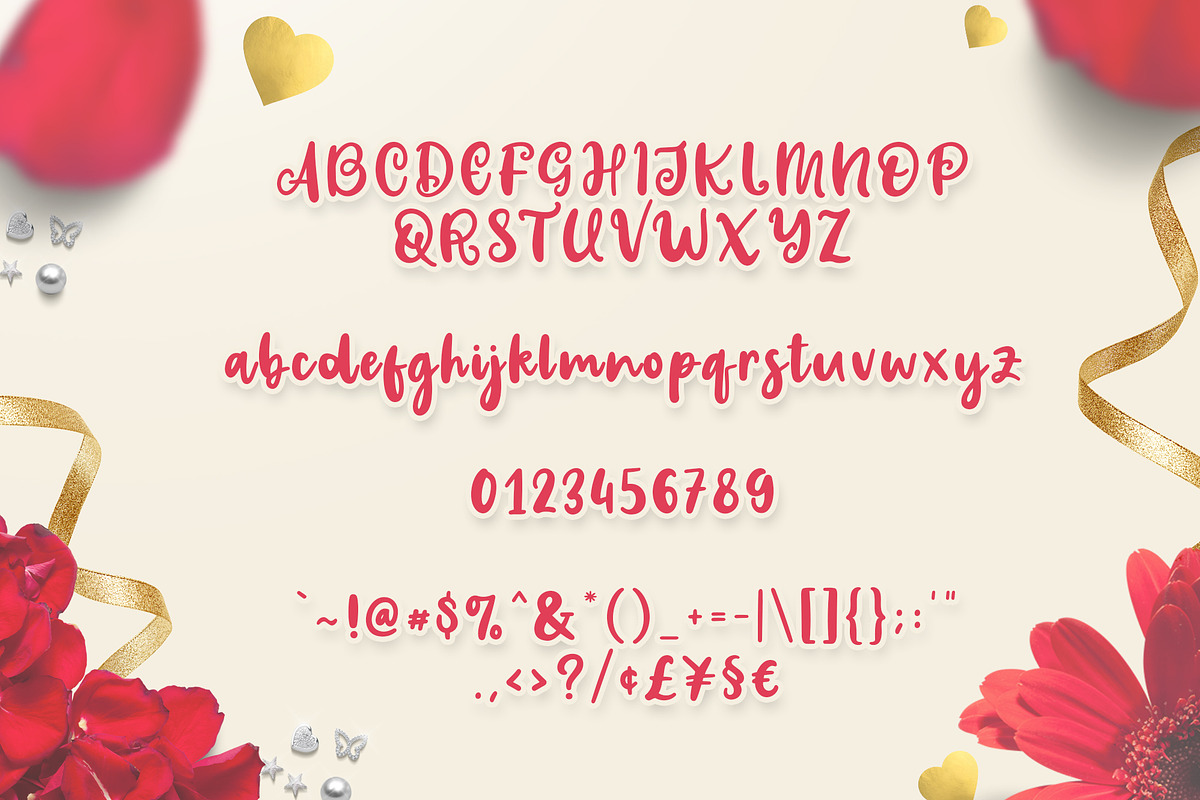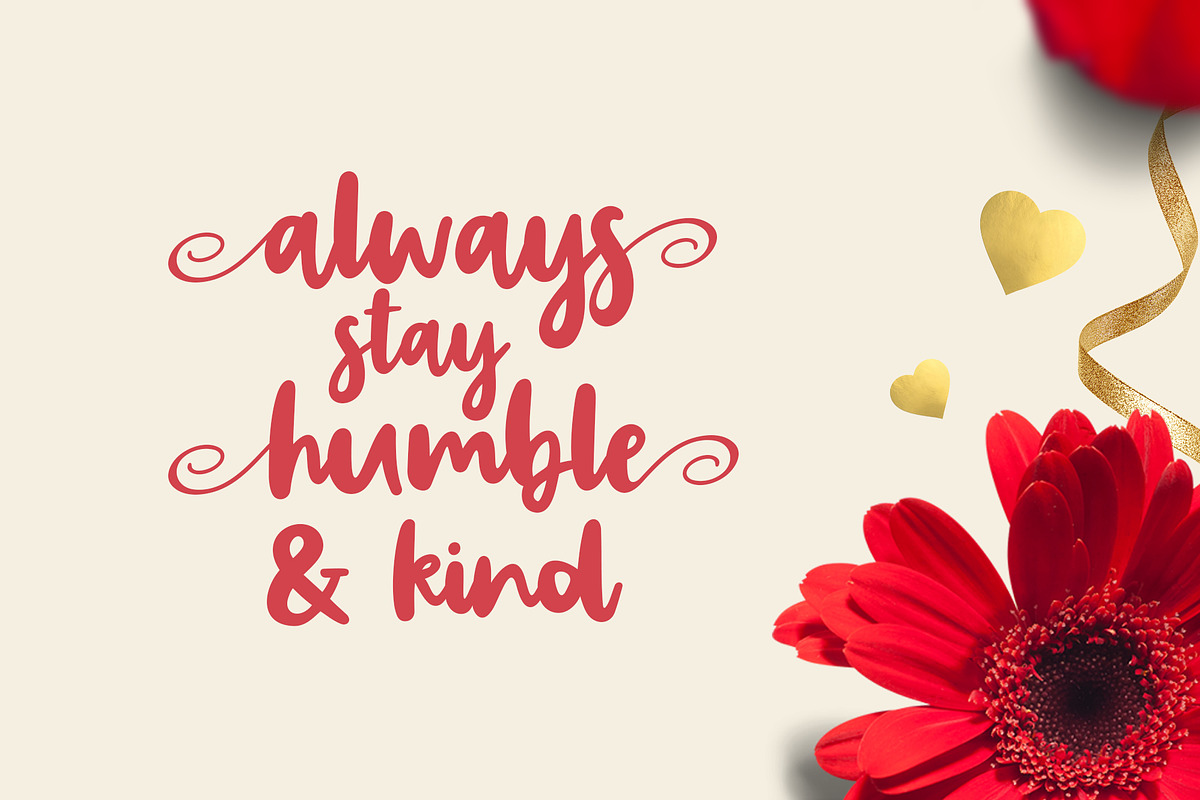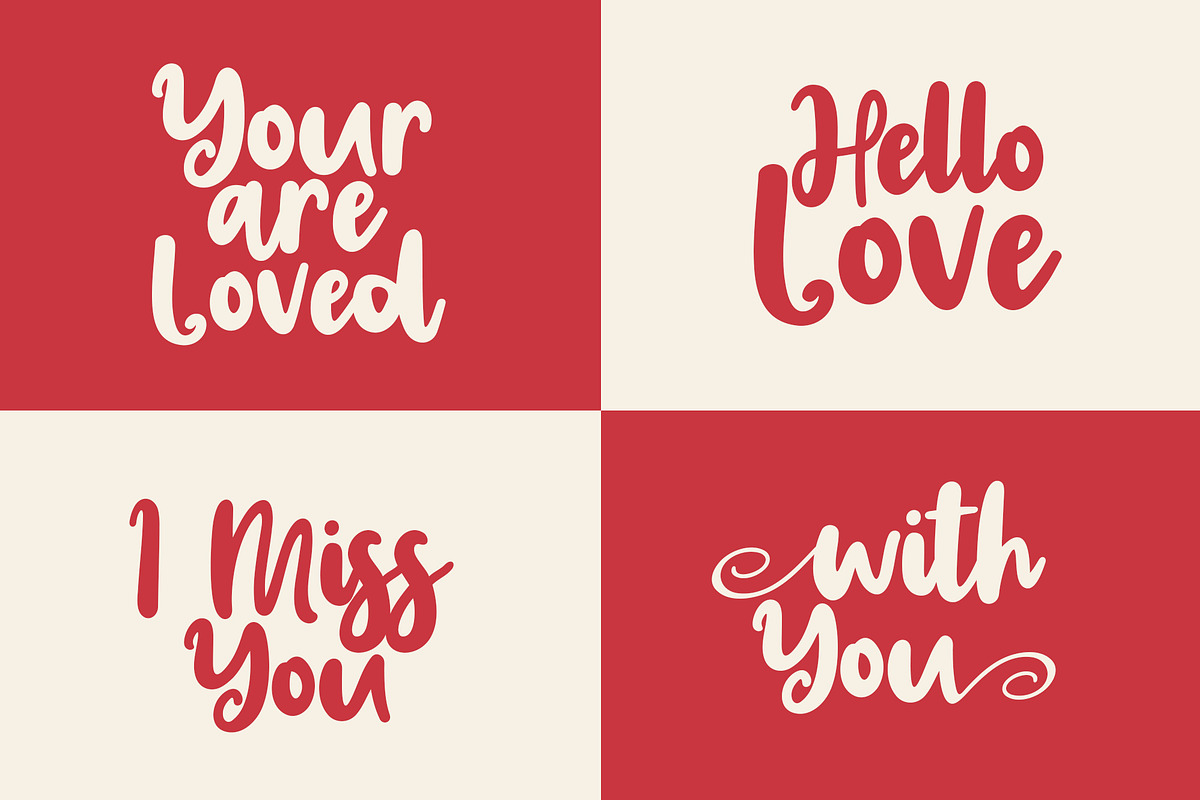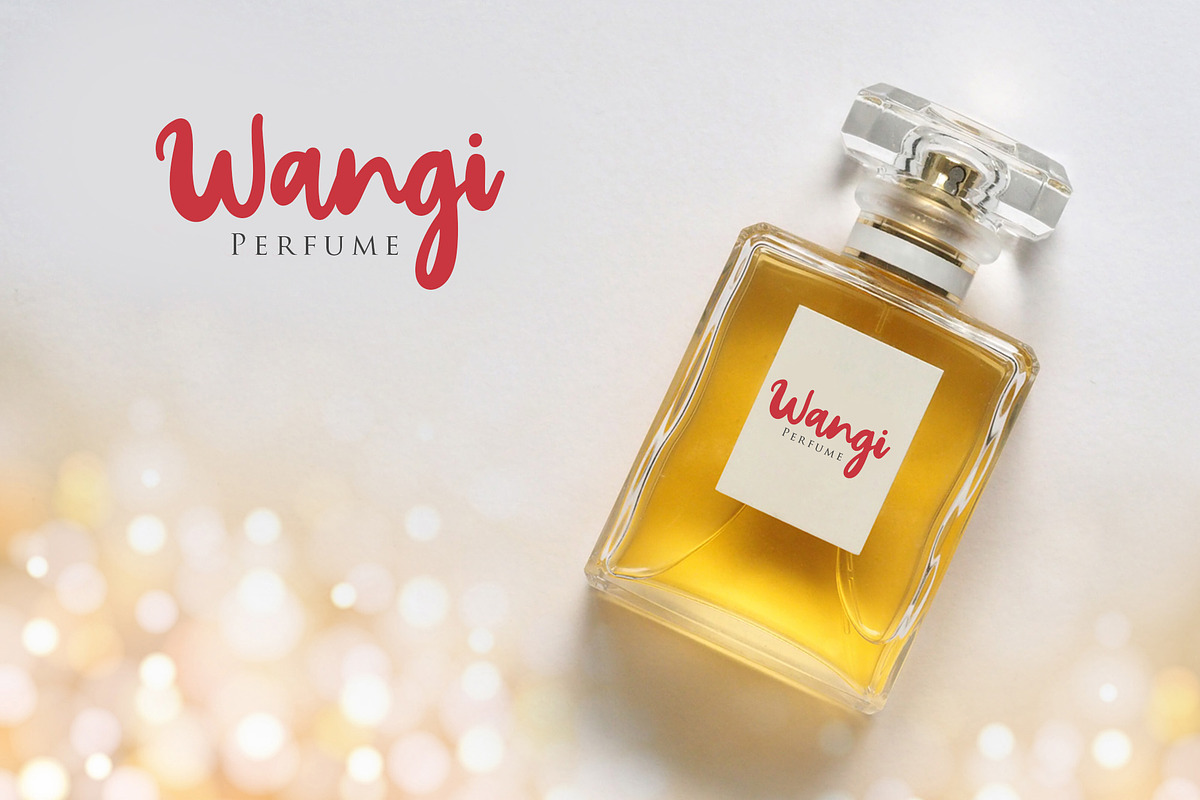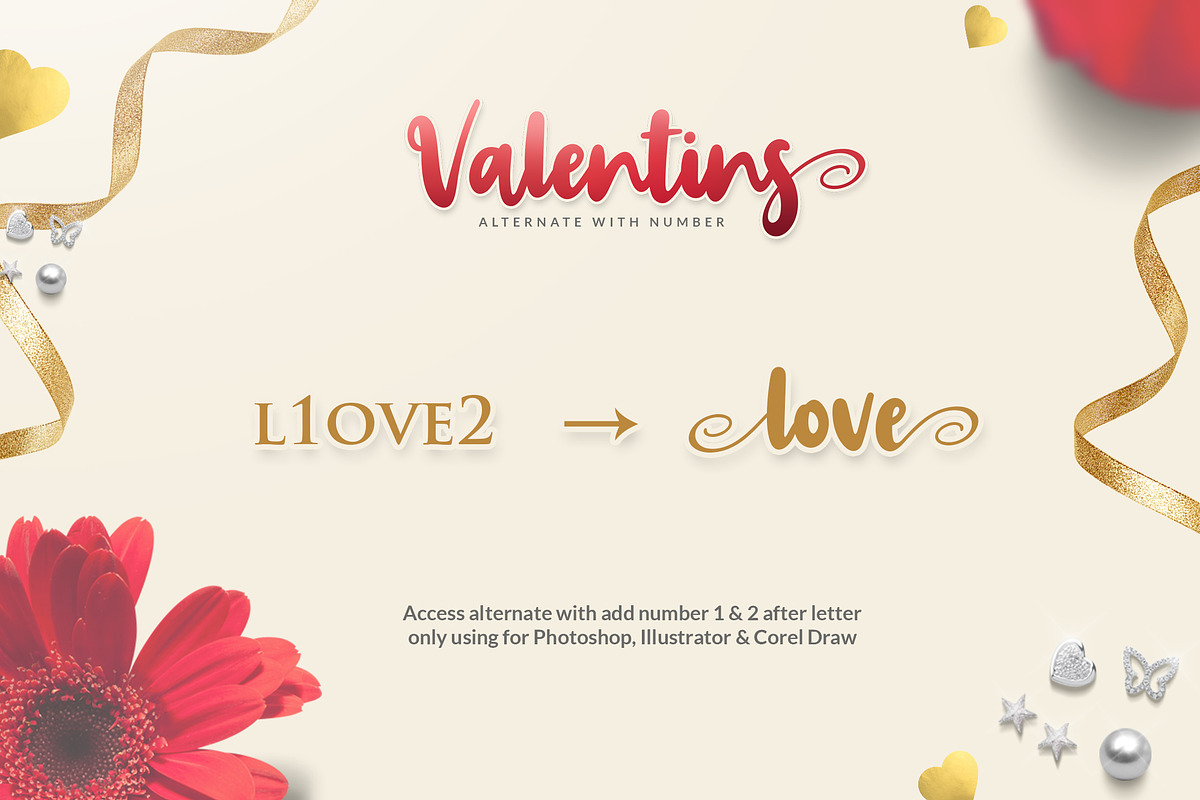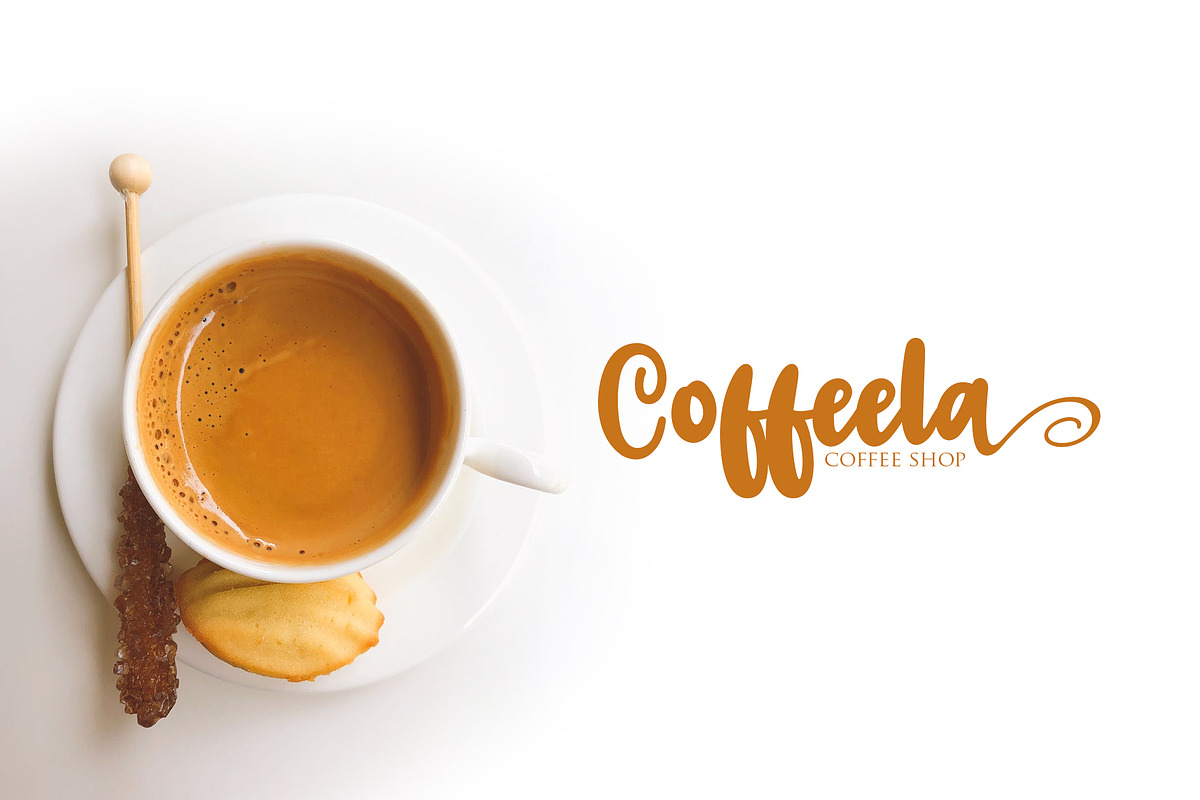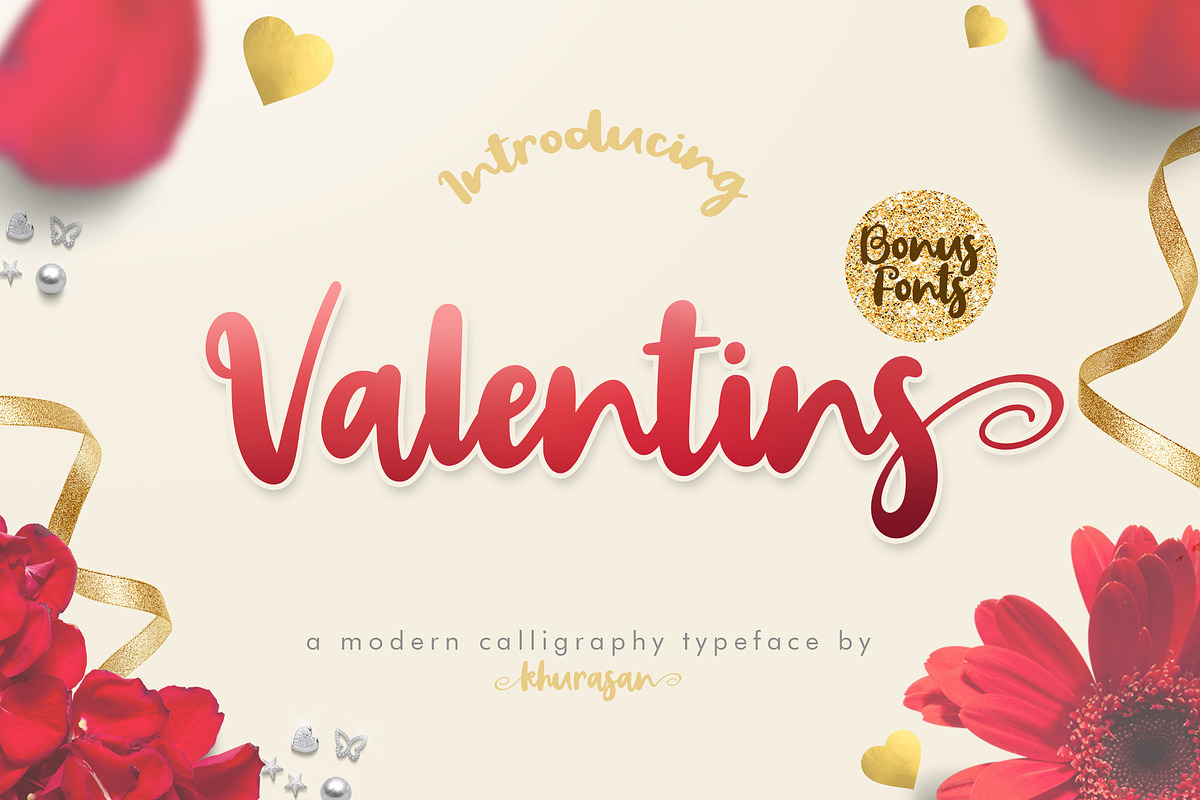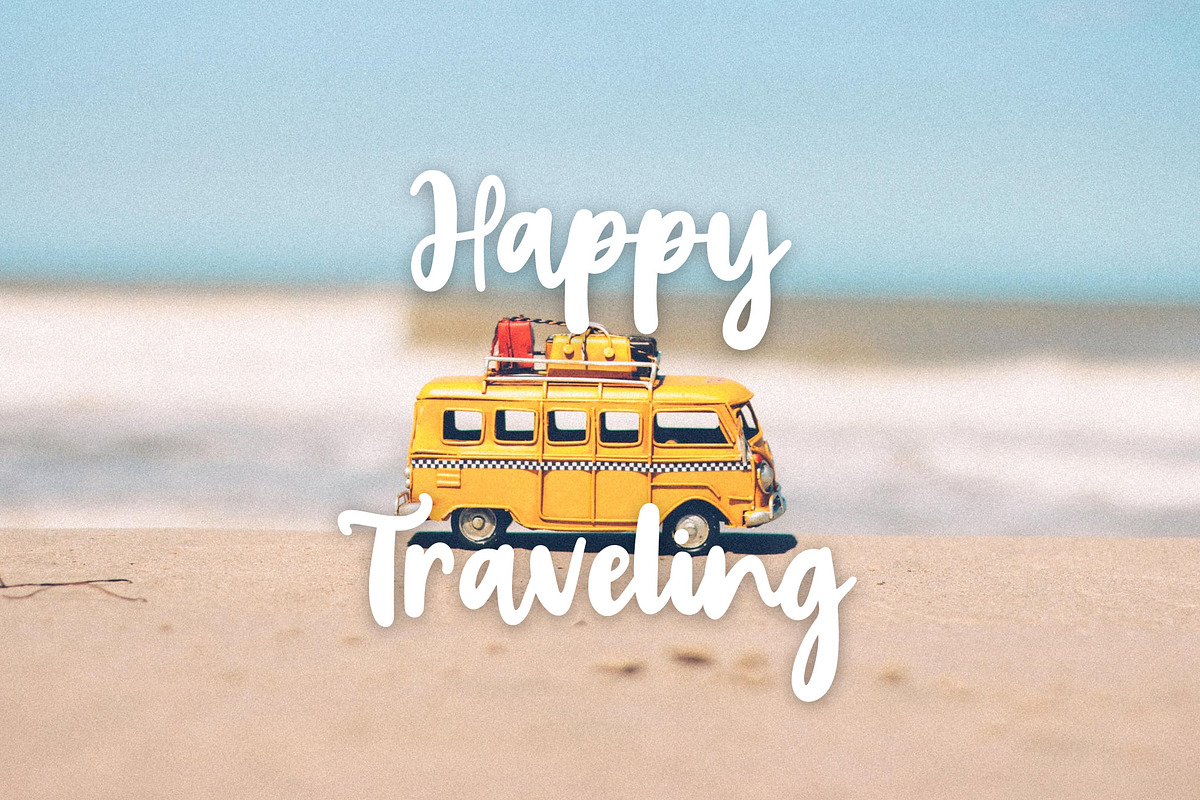
Valentins + Bonus 2 Font
Introducing the Valentins with two different style, regular, slant and bonus Welcome 2019 script font & Memory of 2018 script font. You can combine to get amazing results. Valentins it’s perfect for namecard, poster, logo, magazine, cover, banner, tshirt and headers, or even large-scale artwork..
Numeral & Punctuation
Multilingual support ÀÁÂÃÄÅÇEÈÉÊËIÌÍÎÏNÑOØÒÓÔÕÖUÙÜÚÛWYÝŸ?ŸÆ
Stylistic alternates with number 1 or 2 after lowercase (only working for photoshop, illustrator & corel draw)
You can access alternate with add number 1 or 2 after letter. all lowercase have one stylistic alternate.
For example: you can write v1alentins2 on the tester box (only working for photoshop, illustrator & corel draw)